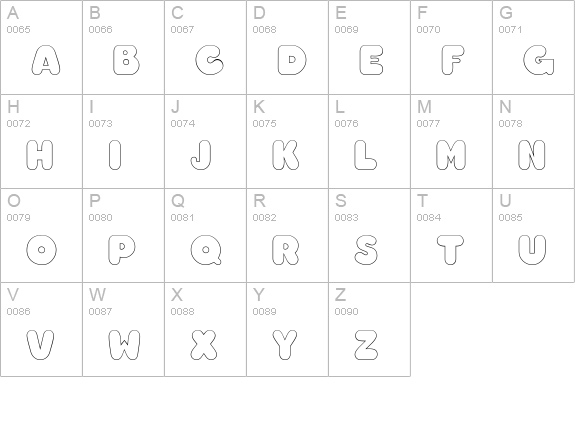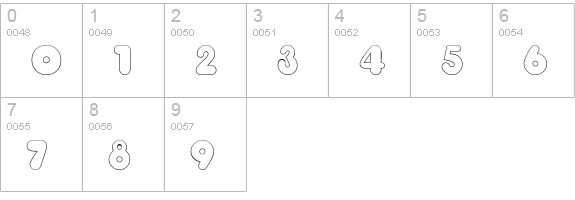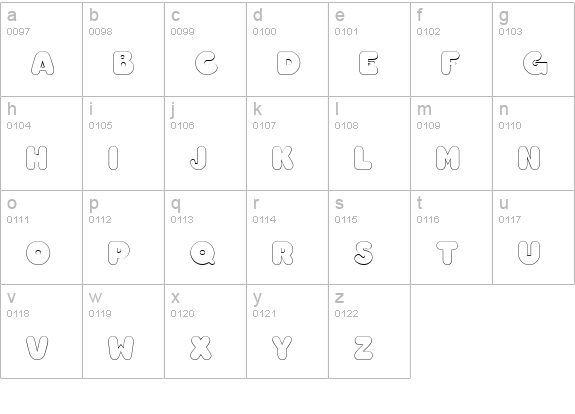
ChubbyOutline Font Details
ChubbyOutline font is a delightful and playful typeface that will bring a touch of whimsy to your design projects. Its chubby, rounded outlines give it a friendly and approachable look, making it perfect for a variety of applications, from invitations to posters to logos. This font is sure to add a fun and lighthearted feel to any design. The best part? ChubbyOutline font is available for free download at FontsMarket.com, making it easily accessible for all your creative projects. Whether you're a seasoned designer or just starting out, this charming font is a must-have in your collection. So go ahead and add a touch of cheerfulness to your designs with ChubbyOutline font today!